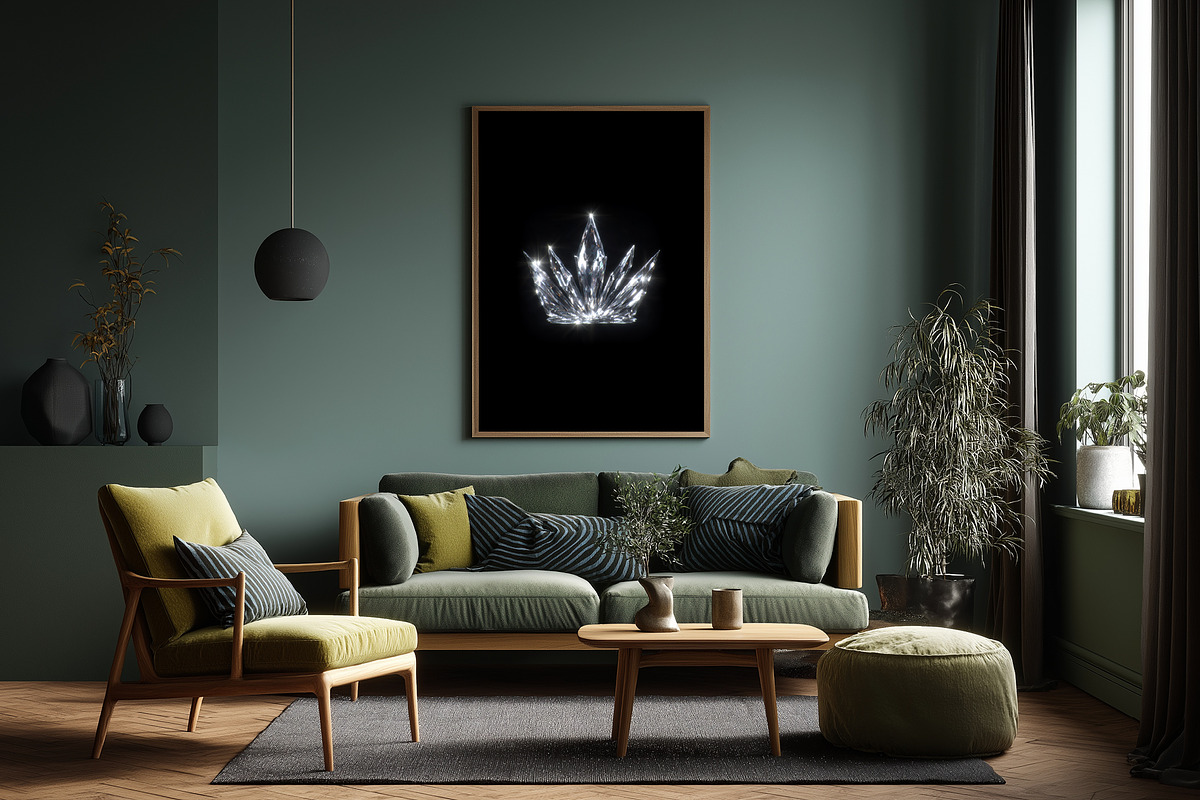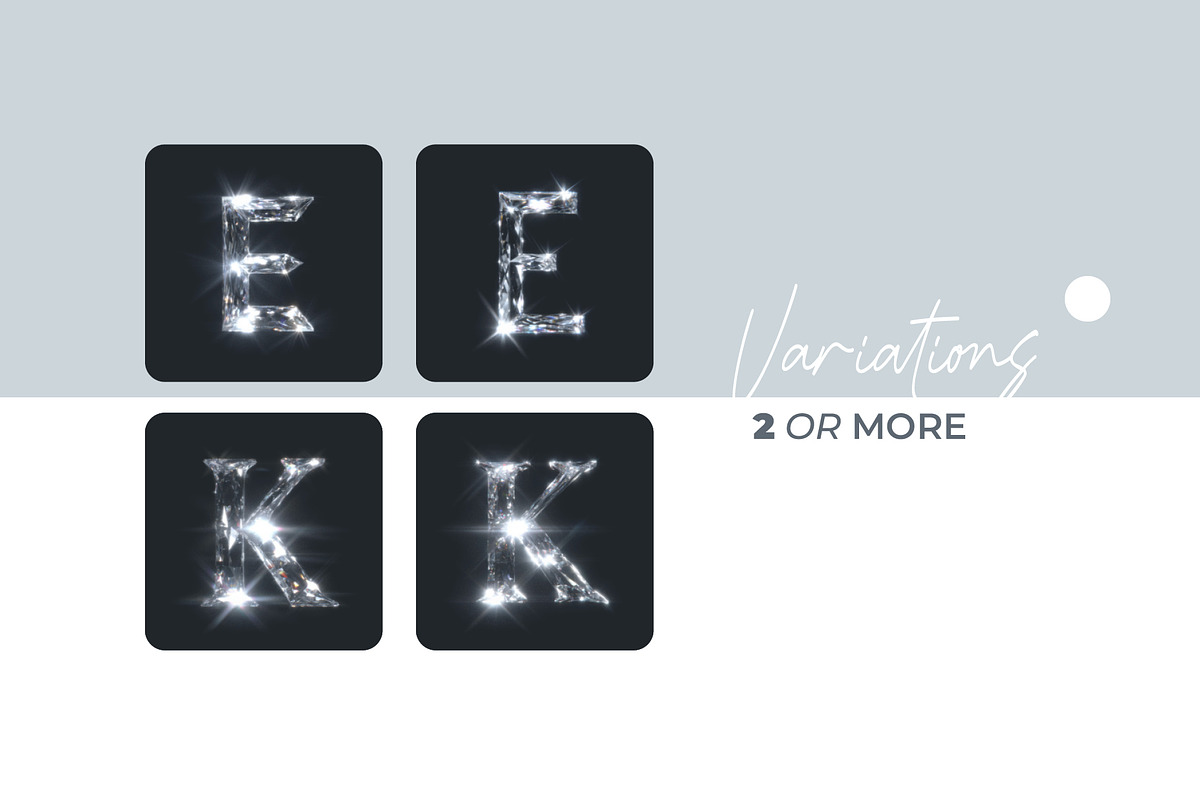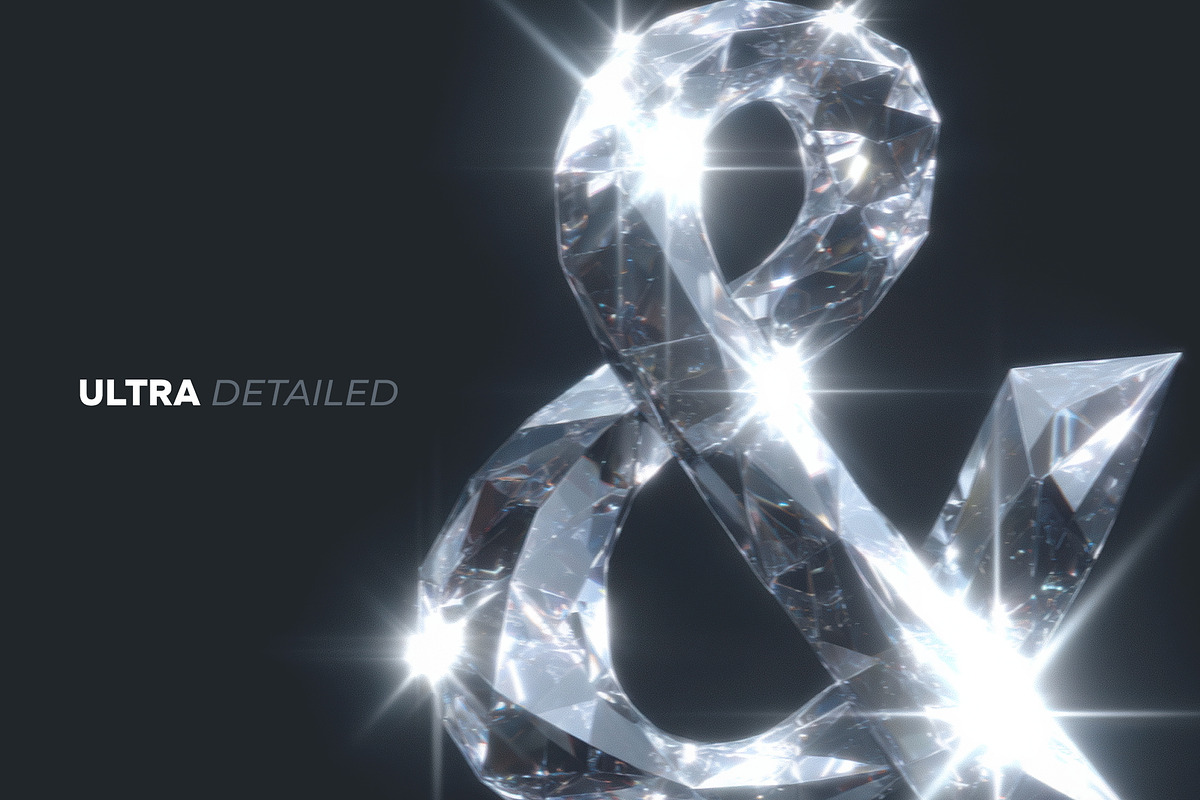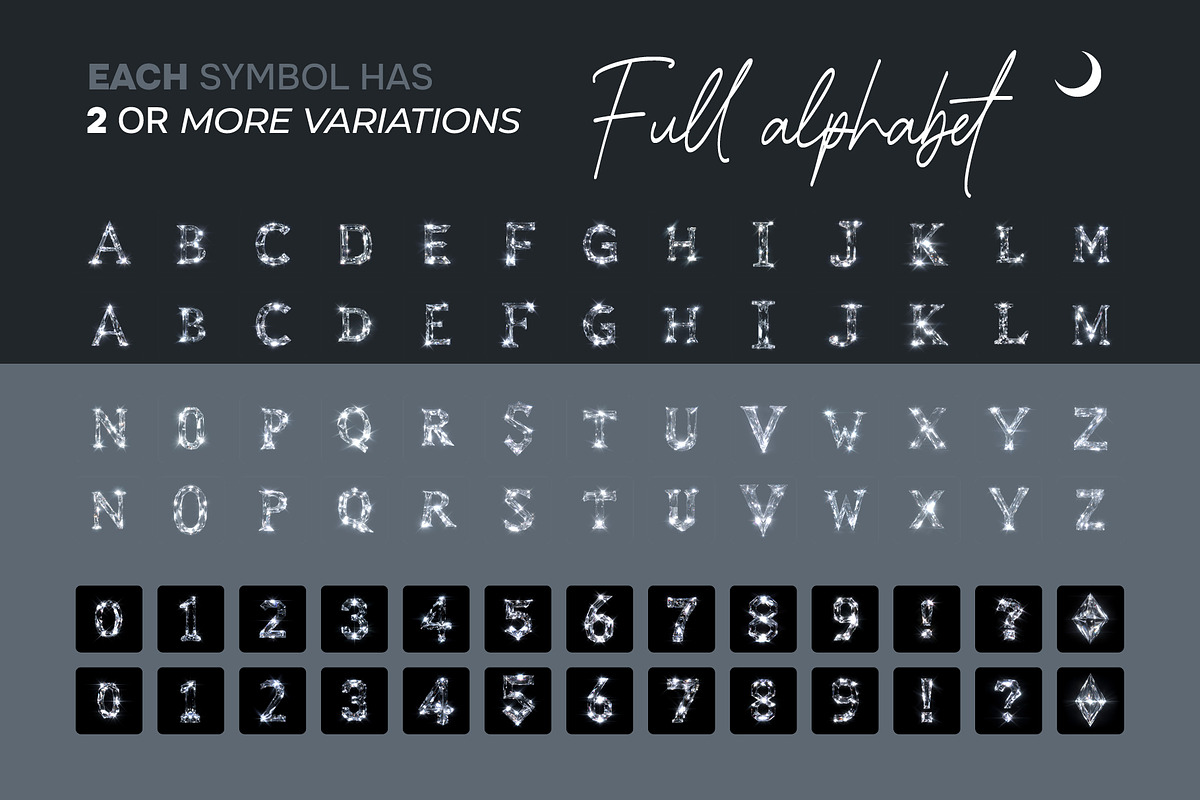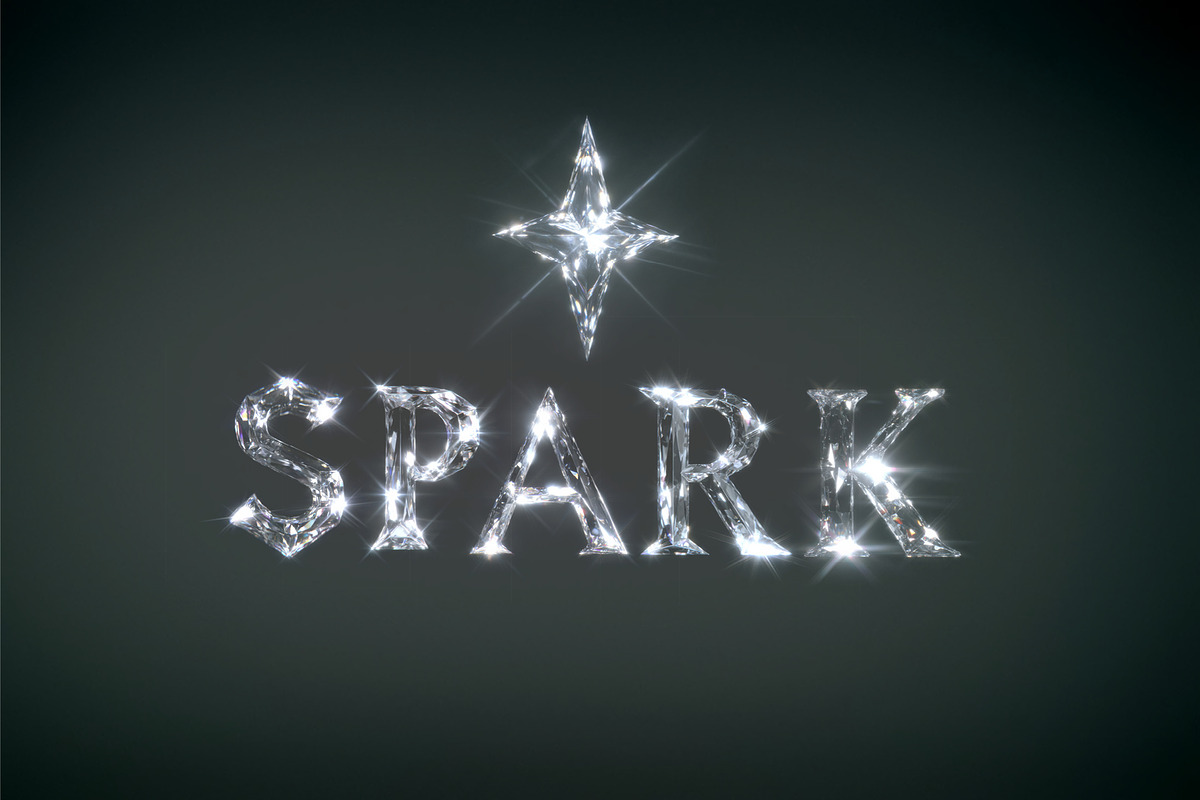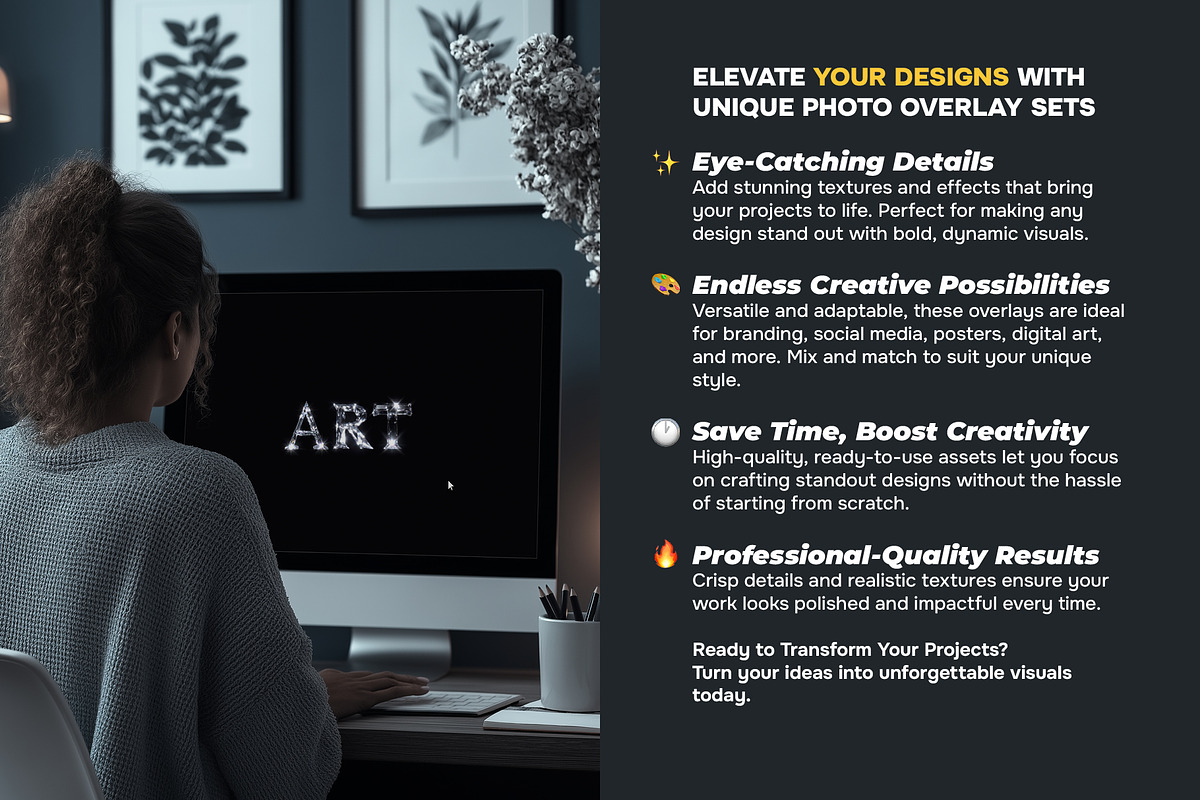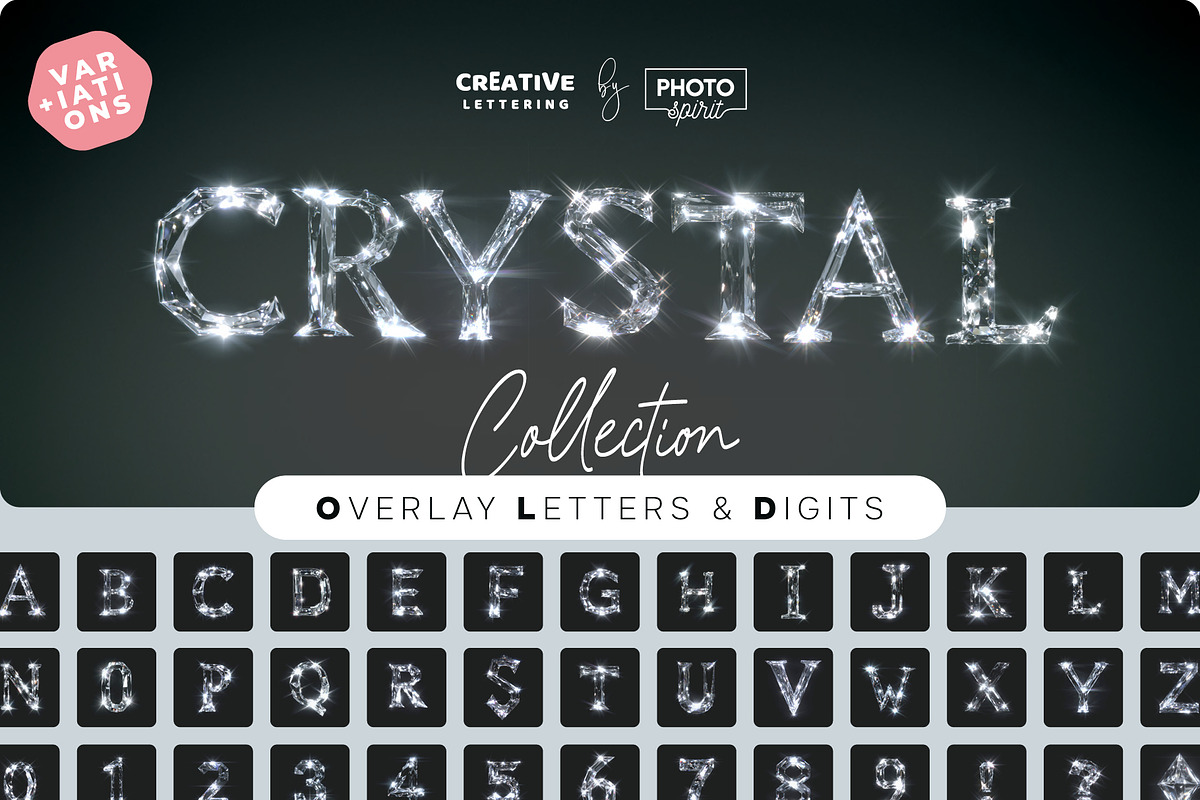
Sparkling Crystals Letters Overlays
Add sparkle and elegance to your creative projects with the Sparkling Crystals Letters Overlays Collection — a dazzling set of alphabet overlays inspired by the brilliance of precious gemstones. Each letter is carefully crafted to reflect the multifaceted shimmer of crystal surfaces, perfect for creating designs that radiate luxury and glamour.
This collection features high-resolution JPG files with vivid colors and sharp detail, ideal for smooth integration into digital and print designs. Whether you’re working on branding, social media visuals, event invitations, or personal artwork, these overlays will instantly elevate your compositions with crystal clarity and shine. ✨ Features:
Full Alphabet + Symbols Includes uppercase letters, numbers, and punctuation for versatile use.
Multiple Crystal Styles Each letter includes 2–5 shimmering crystal variations for design flexibility.
Realistic Gemstone Effects Captures the light-reflecting sparkle of crystals for a high-end finish.
Graphic Designers — Add gemstone-inspired elegance to branding, logos, and layouts.
Social Media Creators — Design stunning, luxurious visuals for Instagram, Pinterest, TikTok, and more.
Event Planners — Craft elegant invitations, mood boards, and décor for upscale events and weddings.
DIY Creators — Embellish journals, scrapbooks, or handmade projects with crystalline charm.